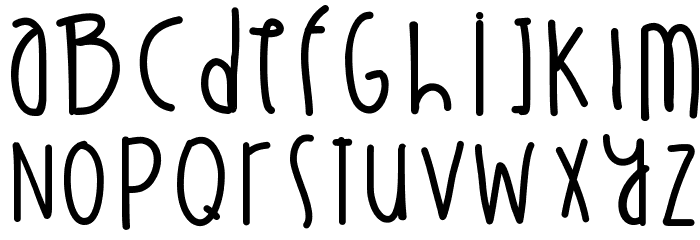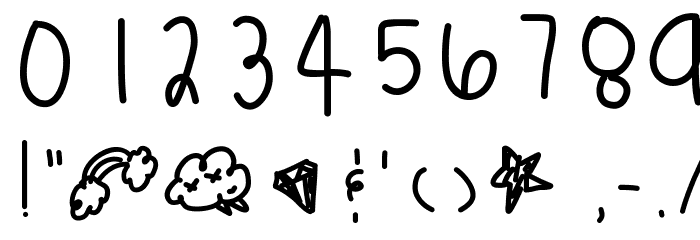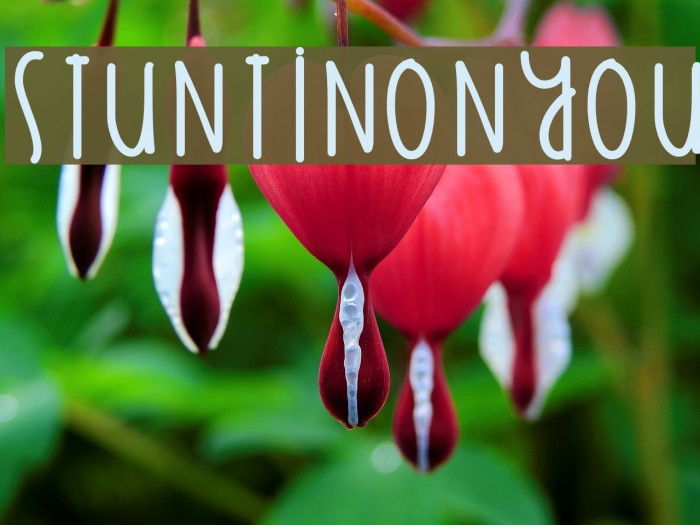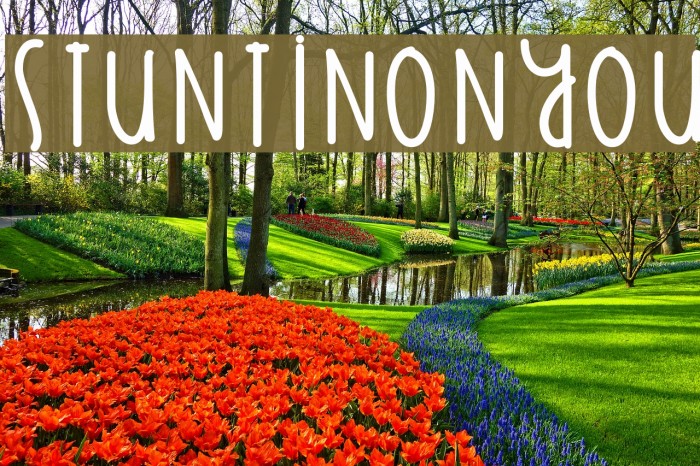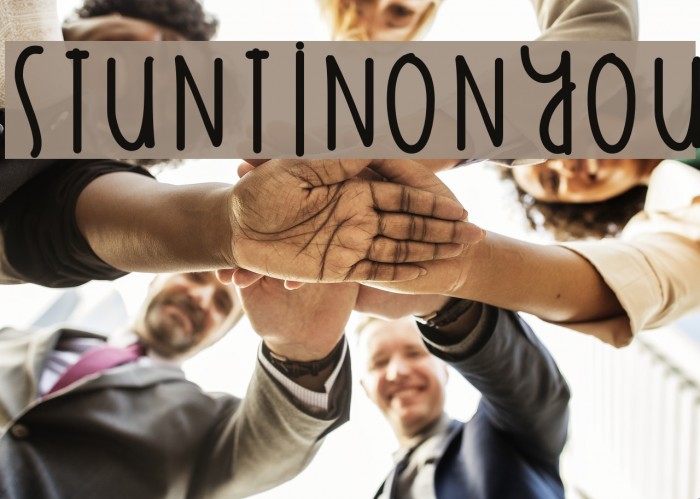
StuntinOnYou Font
This playful and whimsical font features a handwritten style with a casual, relaxed feel. The letters are slightly irregular, adding a touch of charm and personality. The strokes are consistent in thickness, giving it a uniform appearance while maintaining a sense of spontaneity. The characters are tall and narrow, with a slight slant that enhances the informal vibe. The font includes a full set of uppercase and lowercase letters, numbers, and a variety of special characters, including playful symbols like clouds and stars. Its unique style makes it ideal for projects that require a fun and approachable aesthetic.
A playful, handwritten font with a whimsical and casual style.
- Proposed Projects: Ideal for children's books, greeting cards, playful branding, and social media graphics.
- Overall Style: Playful
- Use Case: Headlines, Logos, Social media graphics